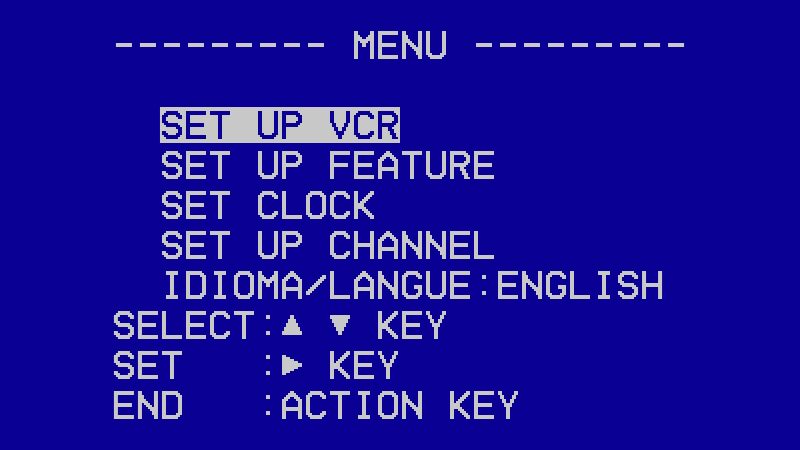
Home Video Bold font, part of the Home Video family by GGBotNet, is a standout option for design enthusiasts seeking a bold and distinctive look. This pixelated bitmap font captures a retro aesthetic with its striking negative style, perfect for projects that demand attention. Its bold weight ensures high visibility, making it ideal for headlines, posters, or any digital artwork where impact is key.
As a free font available for download, Home Video Bold offers designers endless creative possibilities without breaking the bank. Its unique appeal is suited to video game graphics, tech-themed designs, or nostalgic branding efforts. Embrace the charm of pixel art while ensuring clarity and style in your next project with this versatile typeface.
Home Video
Home Video Bold